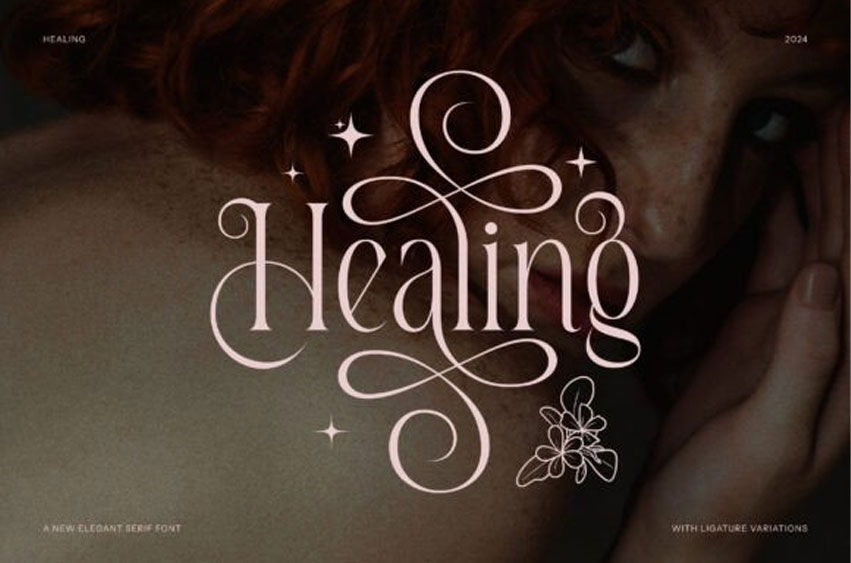
Healing Serif Font
Healing Serif Font inspired by the famous minimalist logo perfect for the purposes of designing templates, brochures, videos, advertising branding, logos, invitations, layout design, elegant crafting, beauty design, and more.